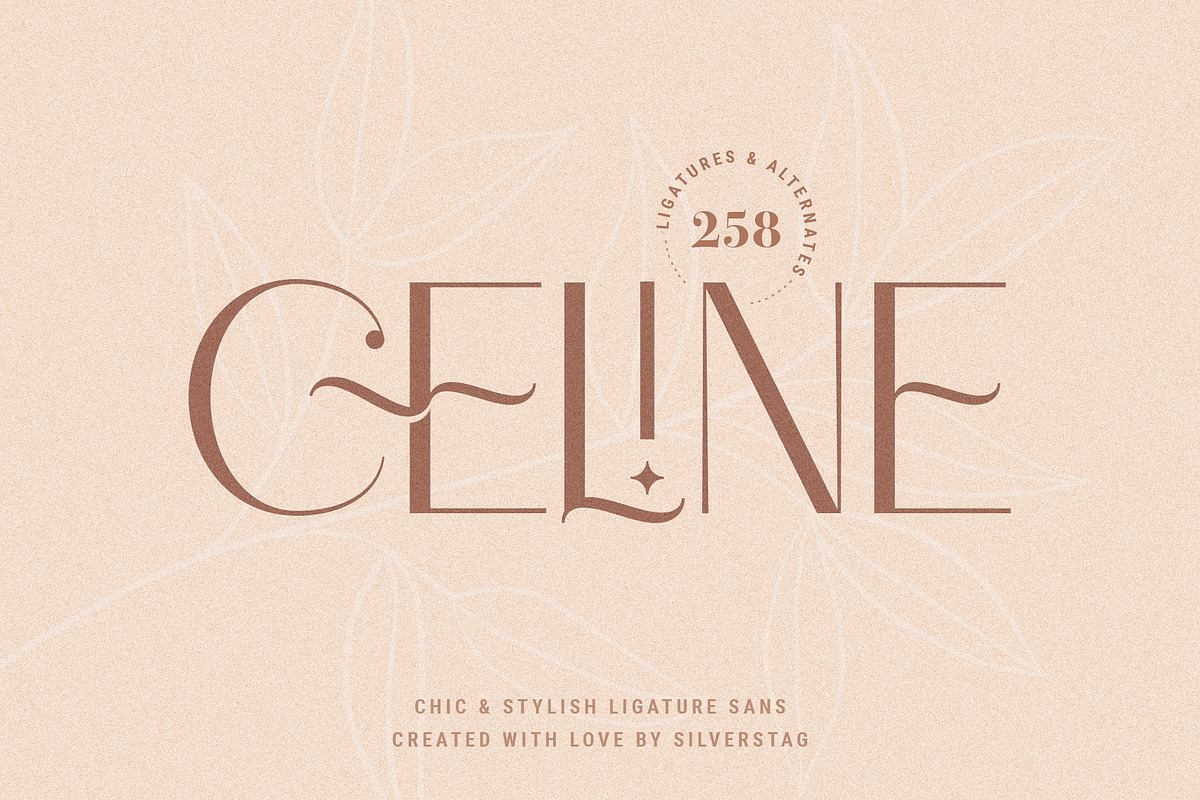
Celine - Chic Ligature Sans & Extras Font Free Download is a modern, fashion-forward typeface designed to bring high-end elegance to your branding and creative projects. Featuring stylish ligatures and a clean sans-serif base, this font is ideal for luxury logos, magazine layouts, fashion campaigns, beauty packaging, and upscale social media content.
What sets Celine apart is its seamless combination of simplicity and flair. The included ligatures and bonus extras offer endless customization options, making it easy to create unique and memorable designs. Whether you're aiming for a minimalist aesthetic or bold editorial impact, Celine delivers sophistication in every detail.